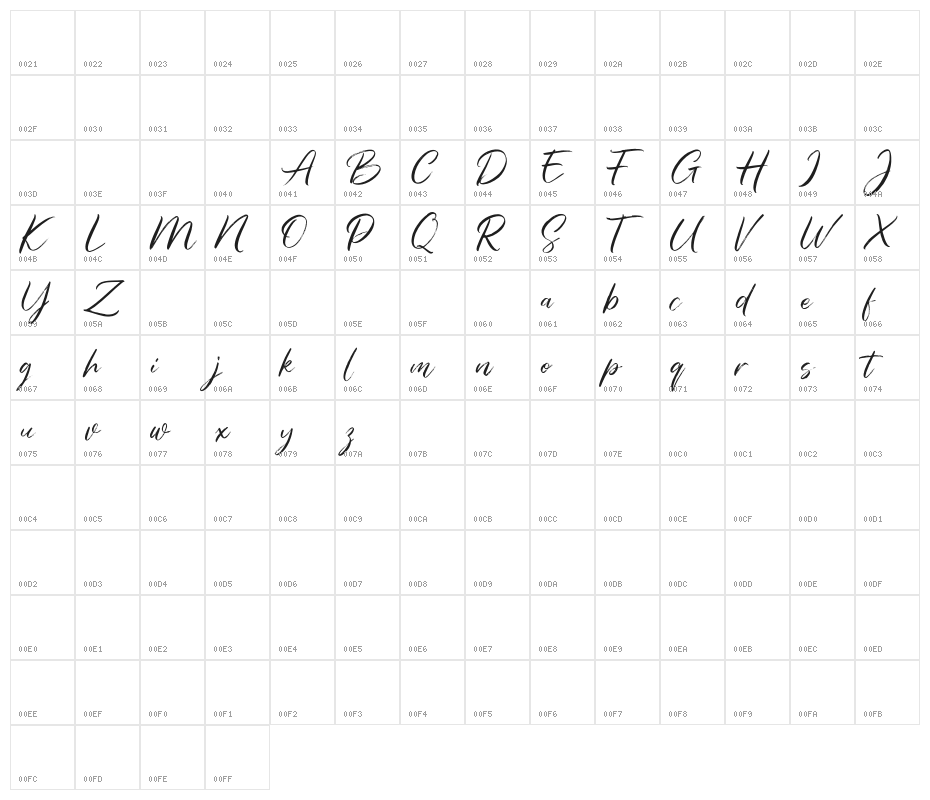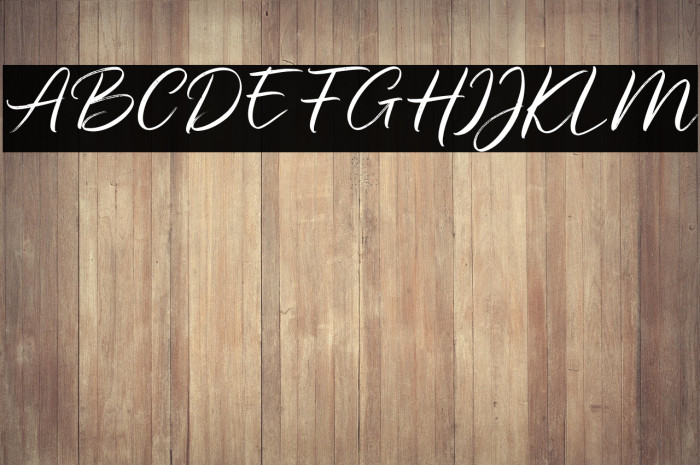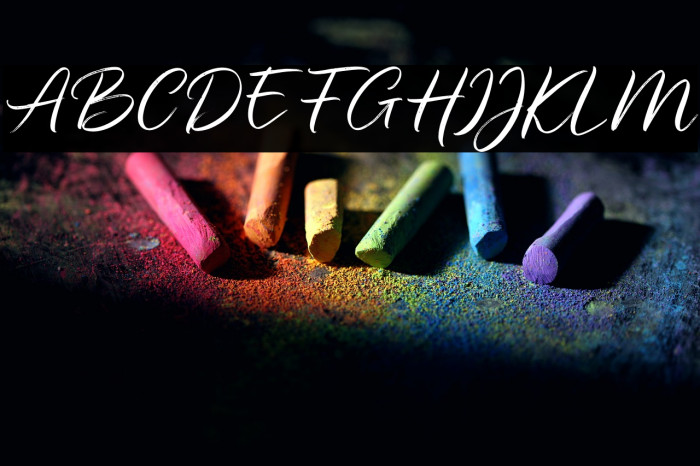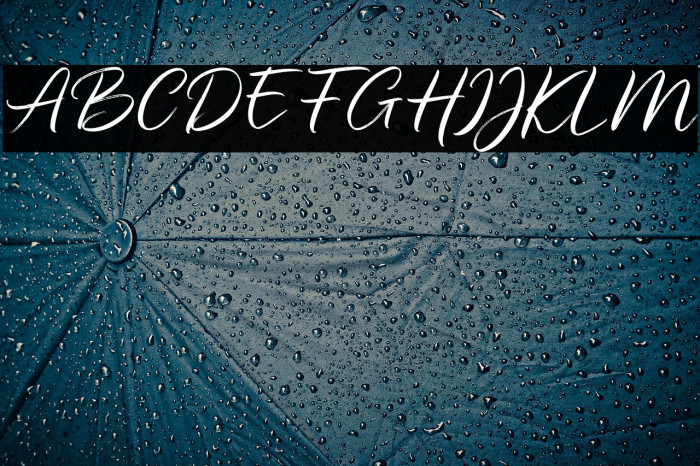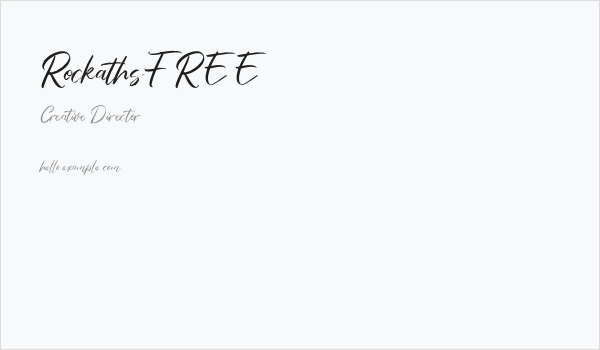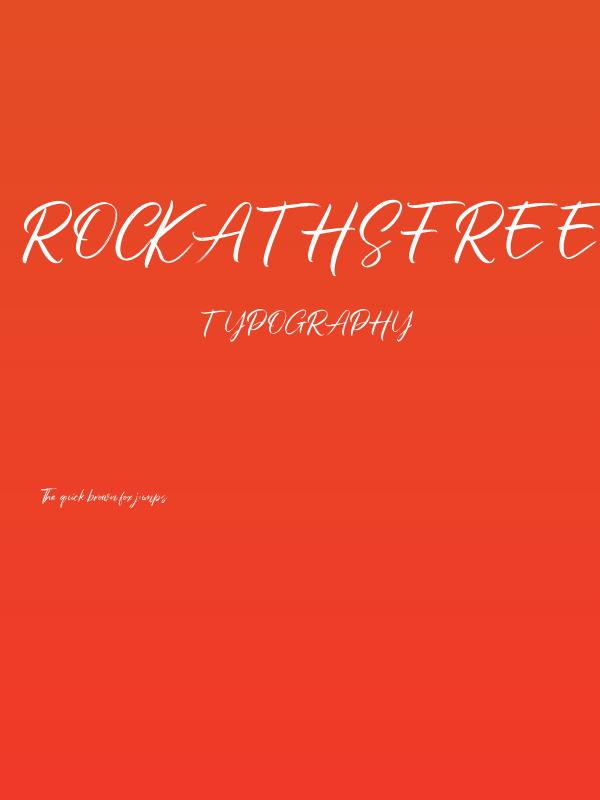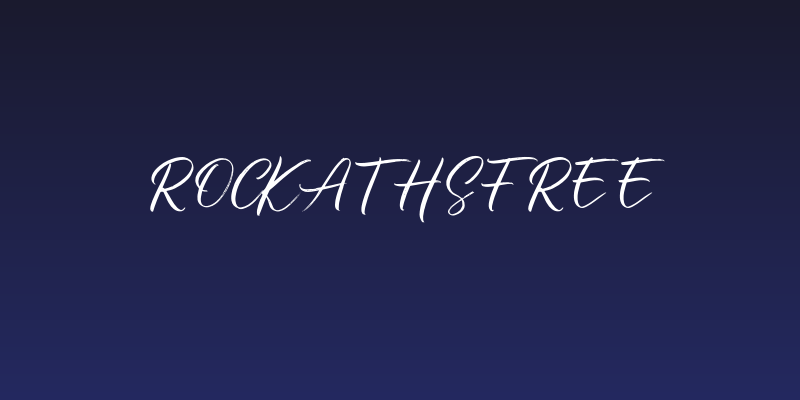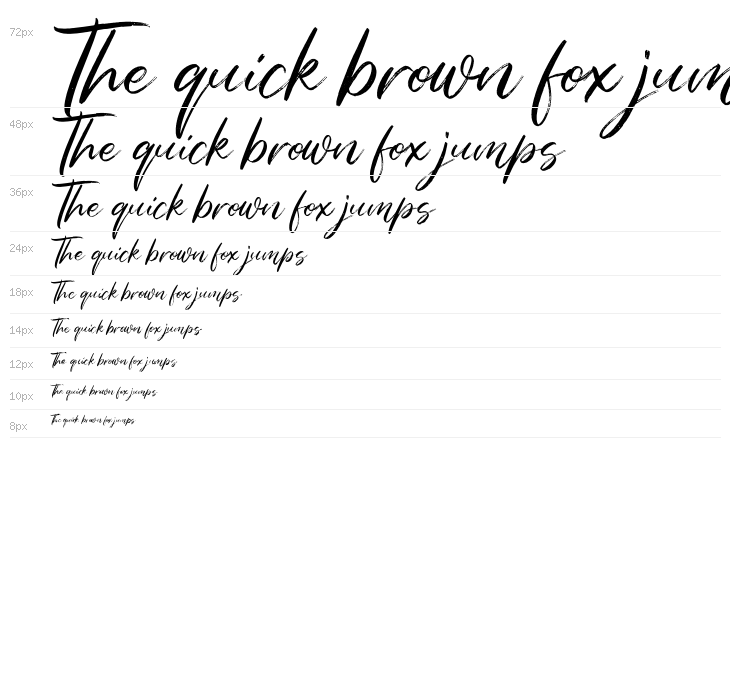
RockathsFREE Font
RockathsFREE Description
This font features a dynamic and expressive script style, characterized by fluid, sweeping strokes that convey a sense of elegance and movement. The uppercase letters are tall and slender, with a slight slant that adds to the overall flow. The lowercase letters are more compact, maintaining a consistent rhythm throughout. The font has a hand-drawn quality, with varying stroke widths that create a lively texture. It is well-suited for creative projects that require a personal touch, such as invitations, branding, and artistic designs. The combination of thick and thin lines gives it a high contrast, enhancing its visual appeal.
Proposed ProjectsIdeal for invitations, branding, artistic designs, and any project needing a personal touch.